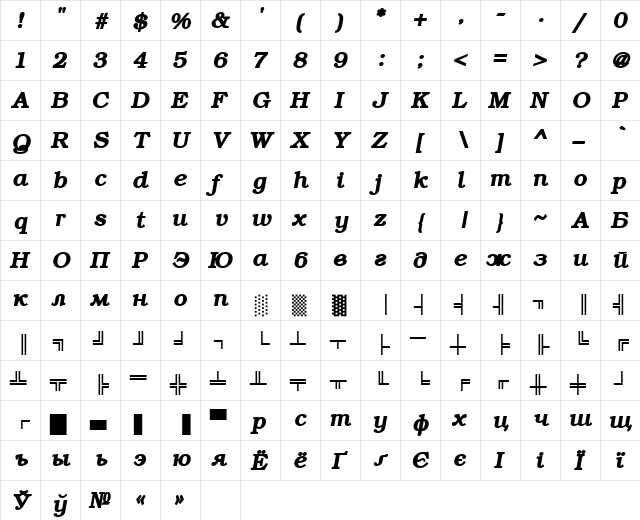
ER Bukinist 866 Bold Italic Font Preview
Design Context for ER Bukinist 866 Typeface
ER Bukinist 866 offers clean, dependable letterforms without strong stylistic allegiance, making it a practical choice for designers who need flexibility. The dynamic lean of this cut emphasises speed and emphasis in any layout. The heavy weight commands attention and anchors typographic hierarchies.
Pro Tip: Try ER Bukinist 866 for annotation and caption copy alongside an upright companion — the contrast in angle creates a dynamic but ordered typographic system.